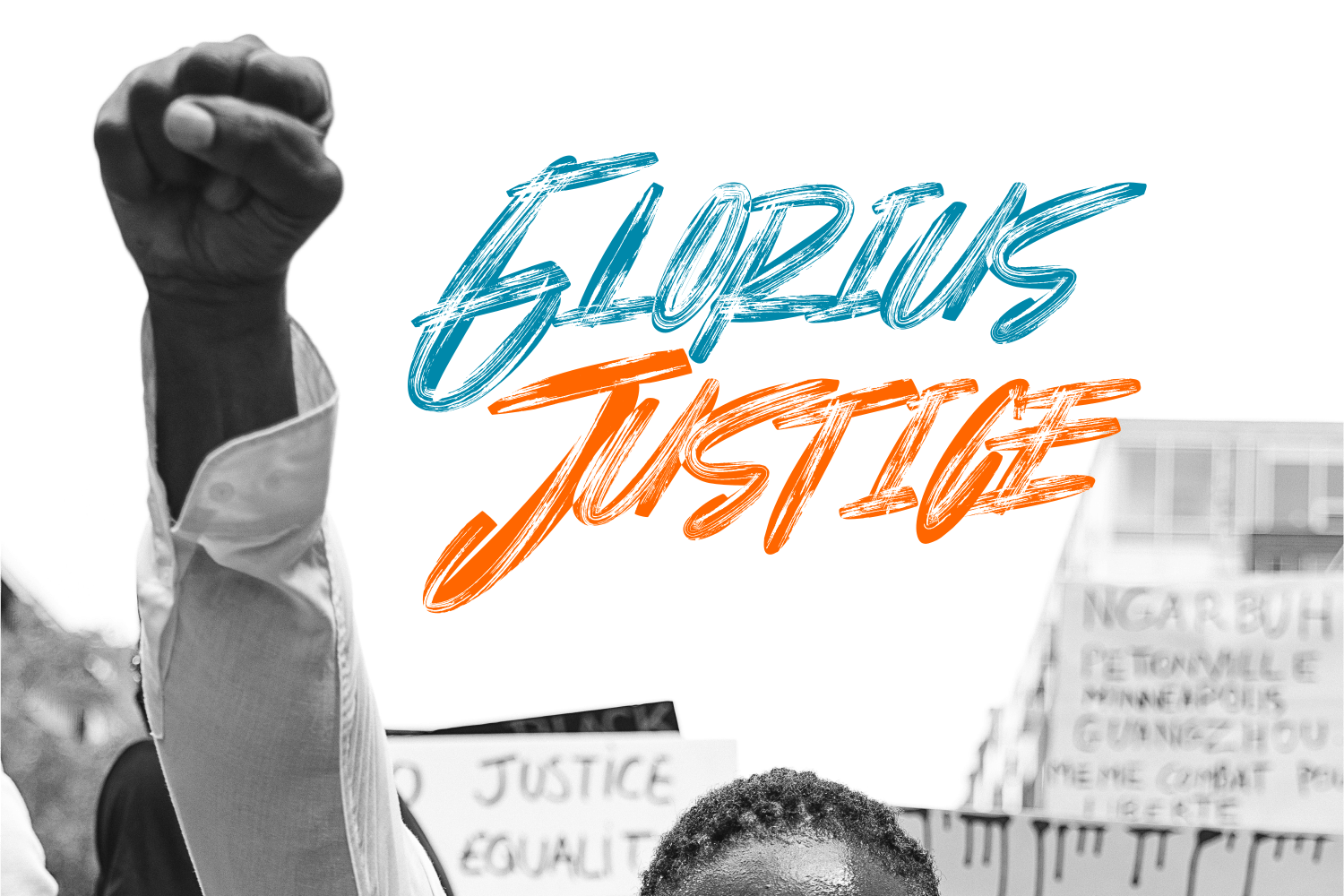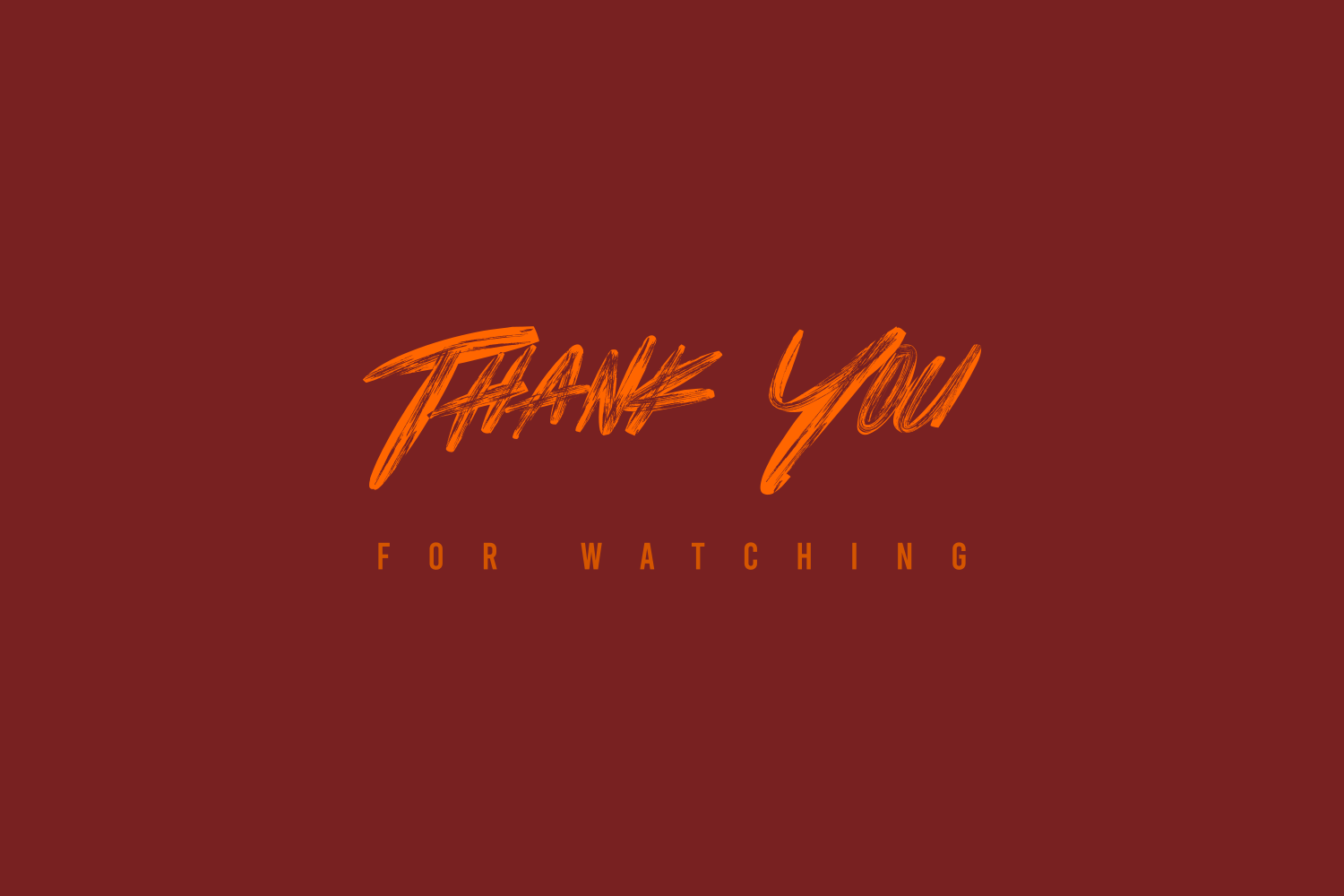
Gayamores Font
Gayamores Display Font
This is a graffiti-styled display font that features a street art vibe. This font is suitable for designs such as t-shirts, sportswear, logos, advertisements, clothing, and more.